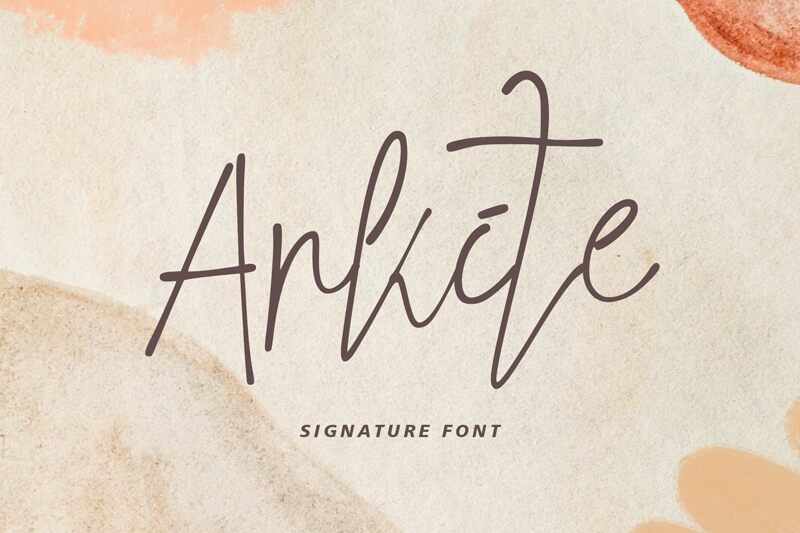
Arkite
Arkite font from Yoga Letter is a free handwritten font that captures elegant, fluid shapes in a modern context. The condensed font features a loopy style where tall and short curves fit together for a signature outlook with an artistic flair. Designed with various line options, the typeface offers truly unique designs created by artists using an advanced creative process.
The contemporary type allows any individual to visualize their words which makes it useful for casual yet sophisticated themes within branding and packaging presentations, fashion magazines, headlines, apparel design etc.